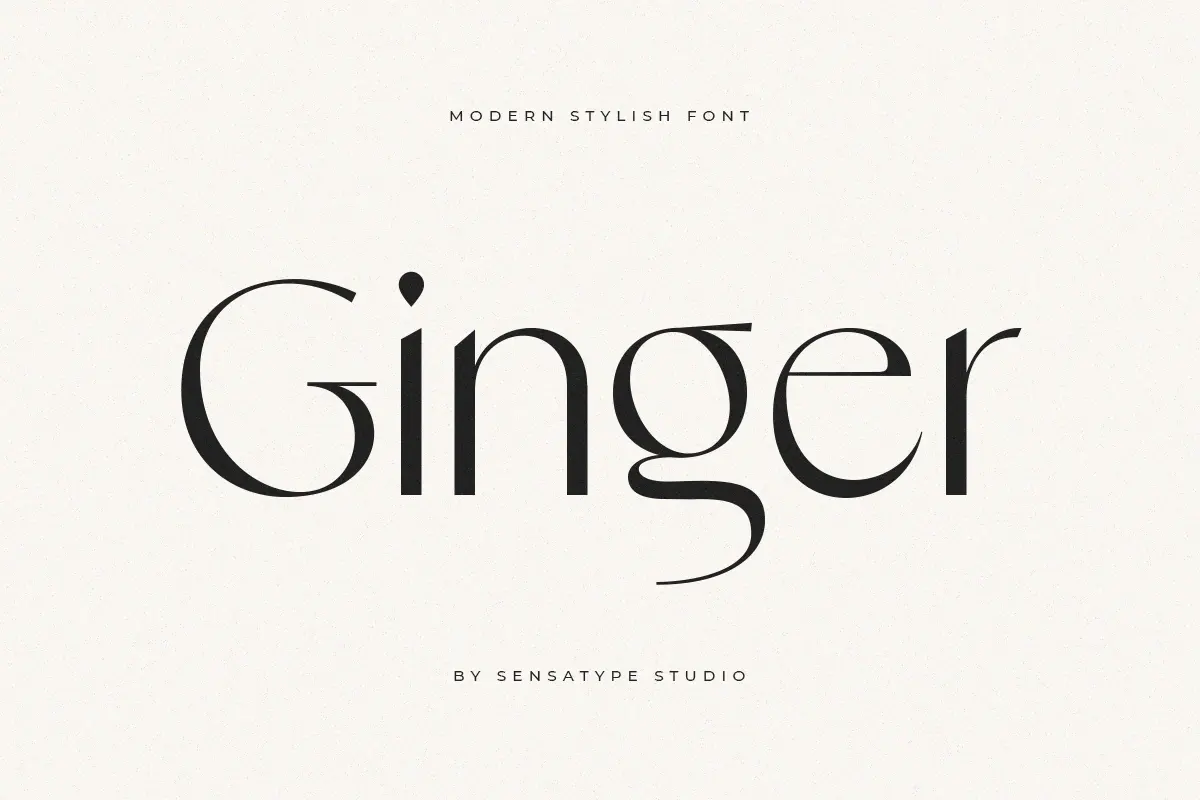
Ginger – Modern Stylish Font Free Download is a sleek and contemporary typeface that combines clean lines with a touch of fashionable flair. Perfect for branding, editorial layouts, minimalist logos, and social media graphics, this font is designed to elevate modern design projects with effortless style.
With its elegant curves and balanced letterforms, Ginger – Modern Stylish Font Free Download offers both sophistication and versatility. Whether you're crafting a beauty brand, fashion campaign, or polished website header, Ginger adds a high-end, professional touch. Test it today to explore how its modern aesthetic fits your creative vision before securing a full commercial license. It’s the stylish edge your typography needs.